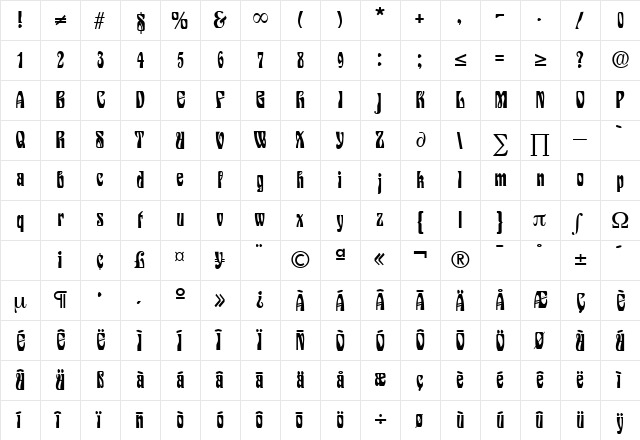
Siegfried DB Medium
Design Context for Siegfried DB Typeface
Siegfried DB is a composed and adaptable typeface that performs quietly and consistently across a wide range of design contexts.